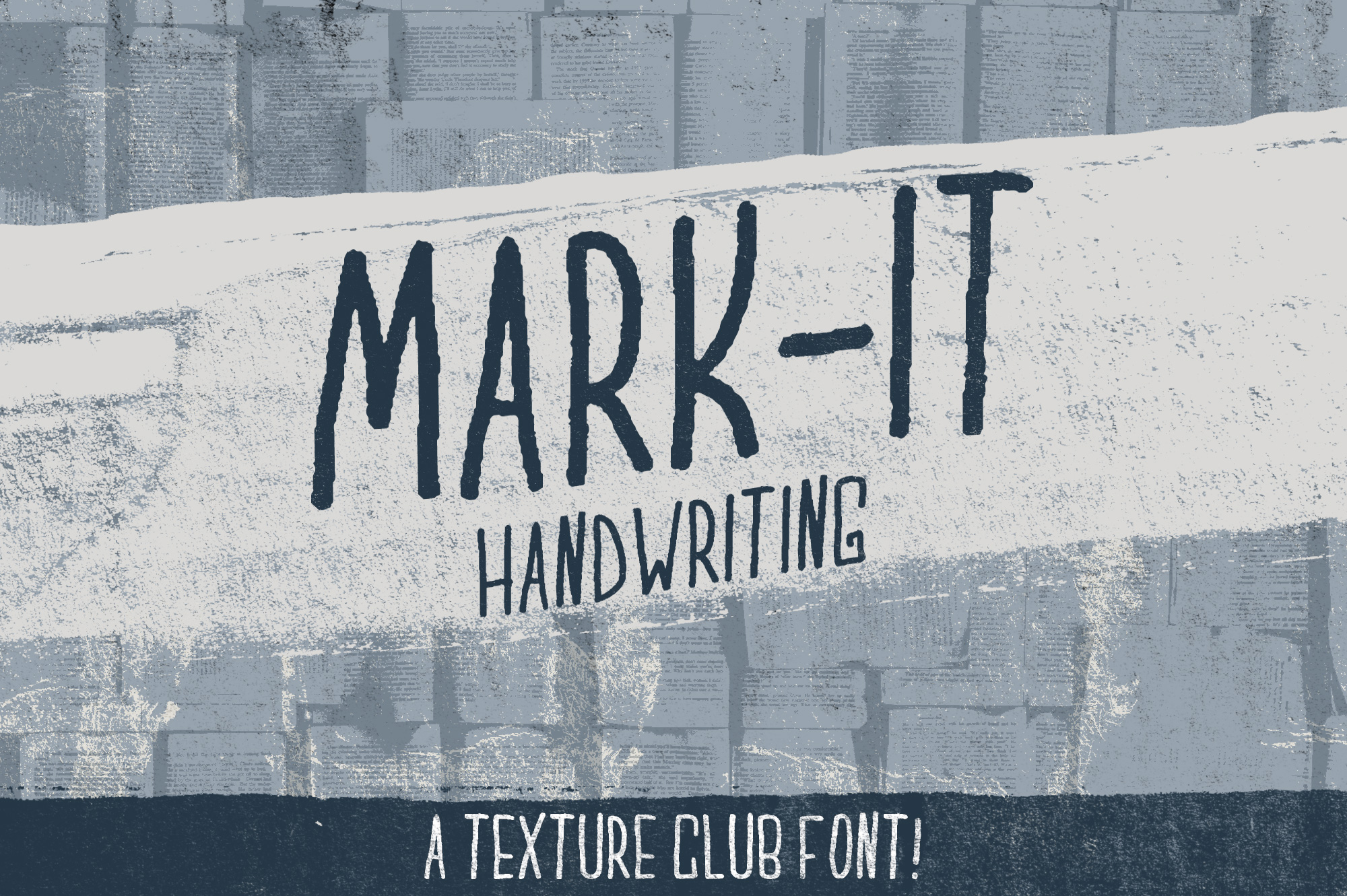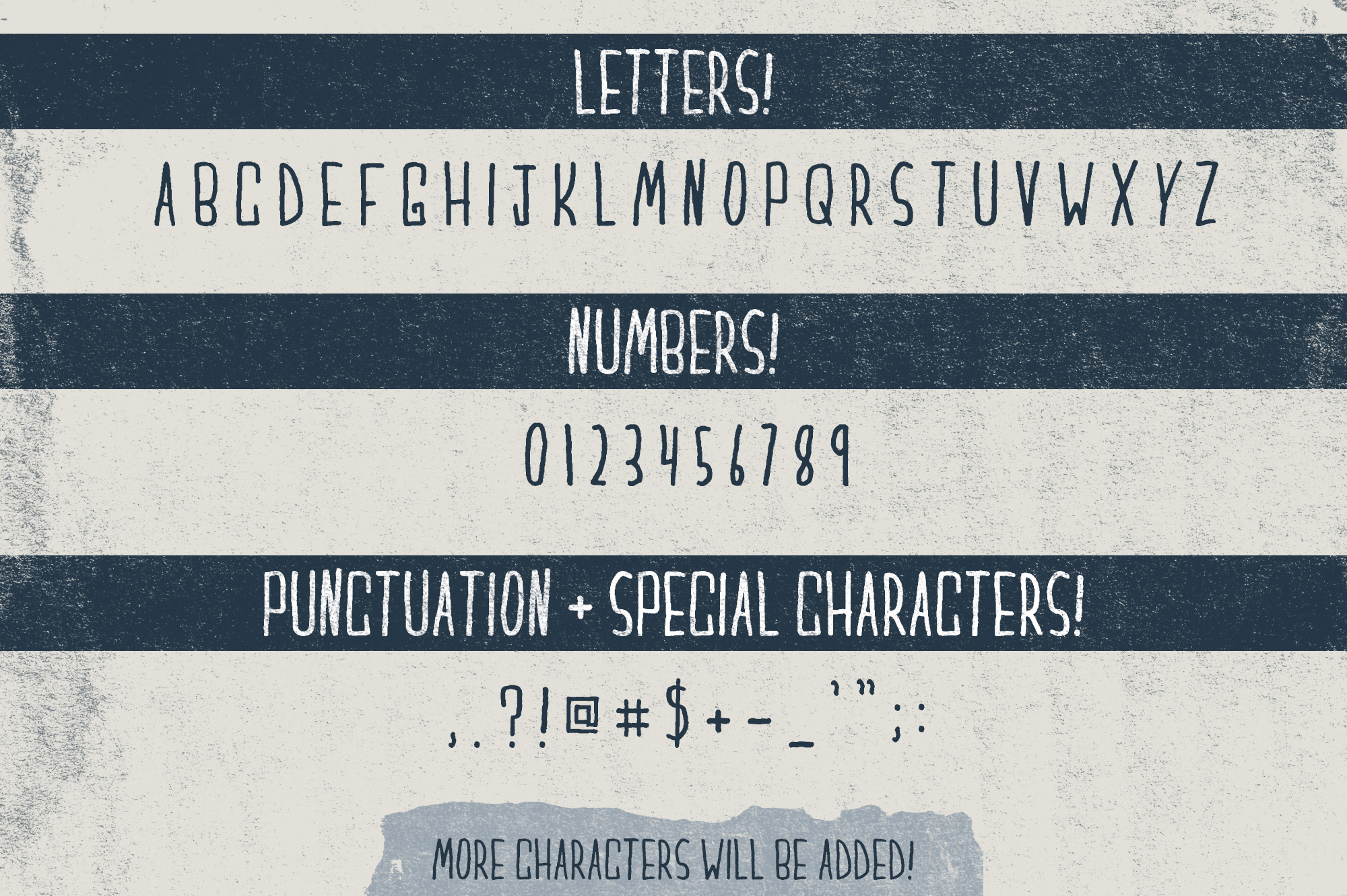
Mark-It Font
About Mark-It Font
A fun, all caps font, with optimal legibility. Textured and squared, this sans serif handwritten font is a great addition to a plethora of designs.